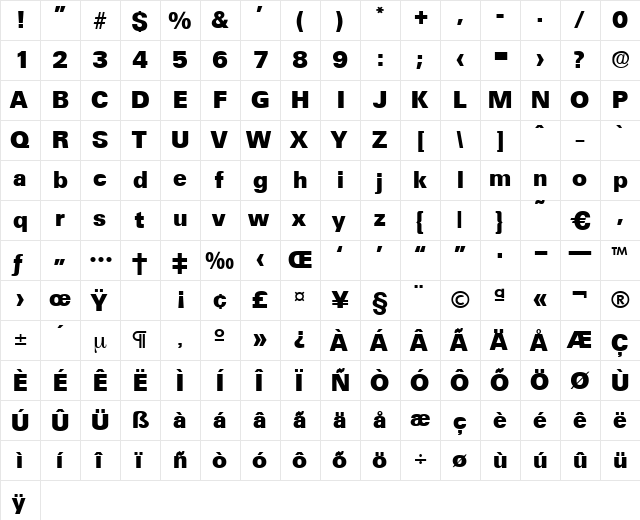
Ultimate-Bold Regular
Design Context for Ultimate-Bold Typeface
Ultimate-Bold takes a measured approach to typography — its balanced proportions and neutral character make it a reliable workhorse for both digital and print work. The heavy weight commands attention and anchors typographic hierarchies.